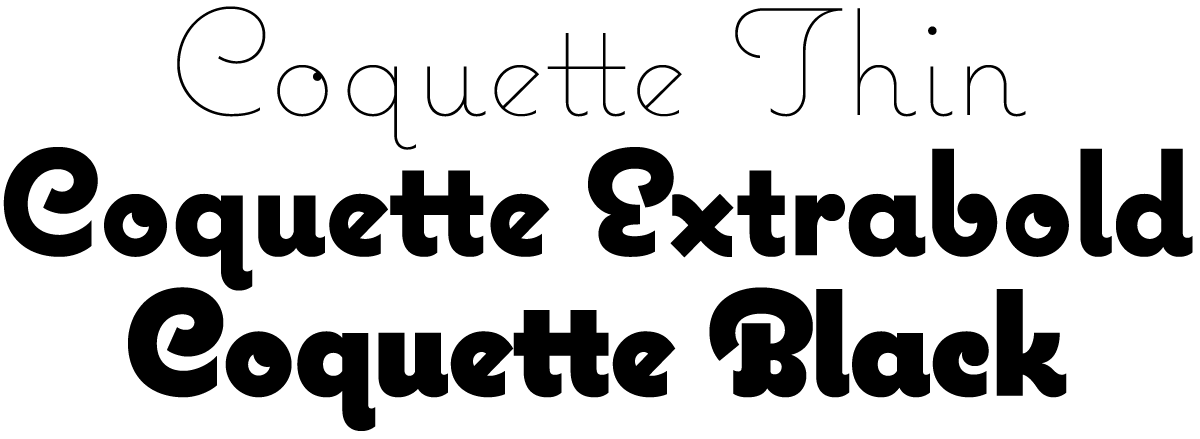
Coquette 2.0
I first released Coquette in late 2001. It had three weights: Light, Regular, and Bold. I’ve updated it a few times since then, most significantly in 2010 with the OpenType version and expanded language support.
For a long time, even before the initial release, I’ve wanted to add more weights, especially on the bold end of the range. And there was certainly room for another weight on the light end. I’m therefore very pleased to announce the addition of three new weights to Coquette: Thin, Extrabold, and Black.
New Coquette weights are Thin, Extrabold, and Black
I took the opportunity to add a few more features to the family.
First, I’ve filled out some gaps in the character set. Previously, Coquette had only the fi and fl ligatures, a holdover from the pre-OpenType days. Version 2.0 now has a complete set of f-ligatures. You might have also noticed that Coquette was missing all those random math characters that are part of the standard character sets in most fonts. It now has them. I don’t imagine they’ll be of much use (which is why I left them out in the first place), but they are there if you need them now.
Coquette f-ligatures
I’ve also added some OpenType features that I thought would be useful.
The first is arbitrary fractions. If you type number-slash-number and apply the OpenType Fraction feature, you will get nicely formatted vulgar fractions. (It seems unfair to call them vulgar. I think they look quite tasteful.) As a side effect of adding this feature, Coquette now includes superscript figures.
Coquette fraction support
The second OpenType feature is support for a few alternate characters. Over the years I’ve noticed that sometimes designers don’t seem to like the little blobs I put on some of the characters, such as the b and o, so they remove them. Coquette 2.0 includes these alternate forms. The other modification I’ve seen is with the lowercase s, which has a stylized script form. Coquette 2.0 includes a more conventional lowercase s as an option. All of these have the effect of making Coquette look a bit more plain, but sometimes that’s what you want. (I didn’t make an option to remove all the blobs. It’s just not Coquette otherwise.)
Blobless alternates
There is also an alternate ampersand. It’s smaller than the default one—about the same height as the figures—and has a simpler design. You can use it anywhere, but it works better than the default when set next to caps.
Alternate ampersand